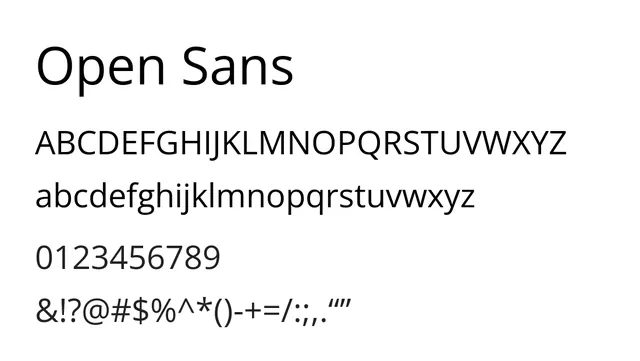
Open Sans SemiCondensed
A semi-condensed neo-grotesque sans optimized for screen legibility and professional applications.
Ideal for UI interfaces, body text in corporate contexts, and where space efficiency matters. The condensed width and open counters enhance readability at all sizes.
Pairs perfectly with Open Sans regular width for hierarchy, or with a geometric sans like Inter for modern tech products.